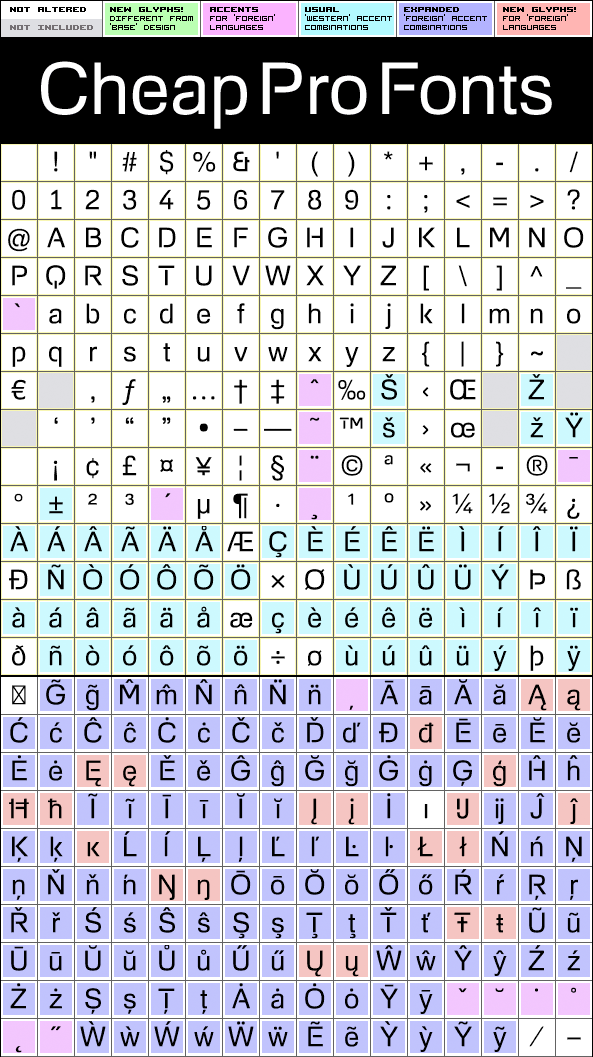
Foobar Pro Regular
Foobar Pro Regular by Roger S. Nelsson
379 glyphs!
474 class kernpairs
= 10726 kerning pairs
This is the cool and stylish relative to Familiar Pro Regular. Like a cousin. Or perhaps a second cousin twice removed. Because parts of the letters are removed, see...
Foobar Pro Regular is a professionally reworked font that contains an extended character set for setting text in 65 languages requiring more than the basic A-Z!